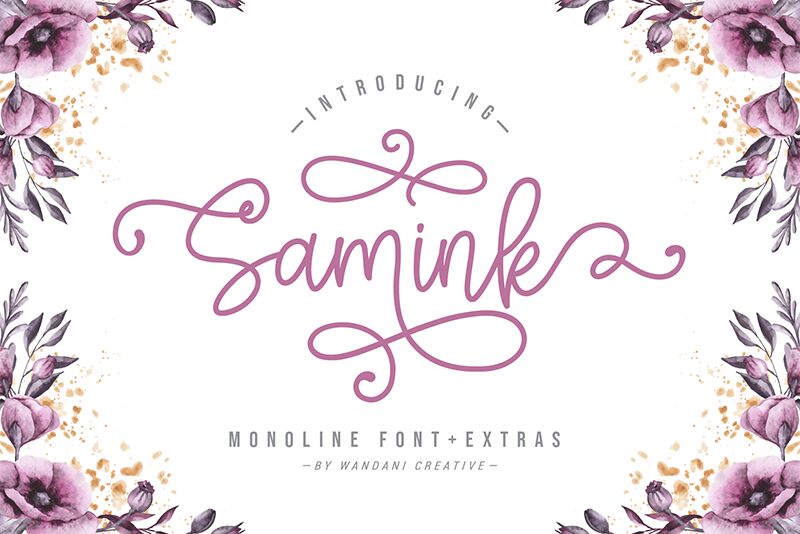
Samink, the monoline handwritten font designed by Beautypes, adds a touch of elegance and playfulness to any project. Its semi-light weight and flowing lines make it perfect for designs that require a sense of lightness and delicacy. From wedding invitations to branding materials, Samink brings a unique character to any project. Whether used for headlines or body text, this font is versatile enough to fit a wide range of design styles. Its effortless charm captures attention and is sure to leave a lasting impression on your audience. Add some personality to your next project with Samink!
Samink